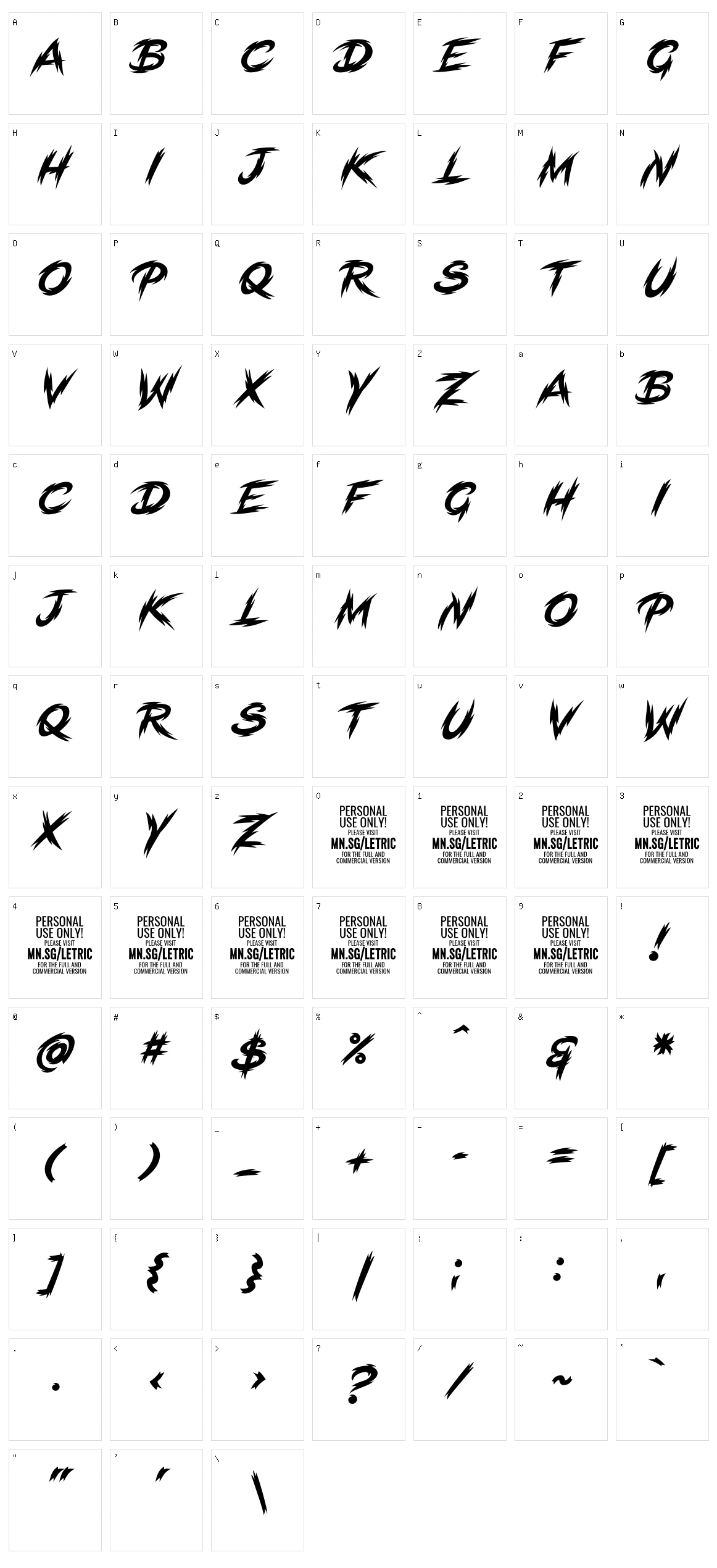
Letric is a high-energy capital typeface.
With traits of a brush comic title, it has rough and cut edges, electric in nature but with smooth curves.
The strokes are reminiscent of a tiger's skin, making for a great jungle or wildlife font.
Used in the right context, with the right wording, it fits perfectly as a vintage thriller/splatter/horror movie header typography.
This cartoon sans-serif is slanted/italic as default but also comes with a professional upright style.